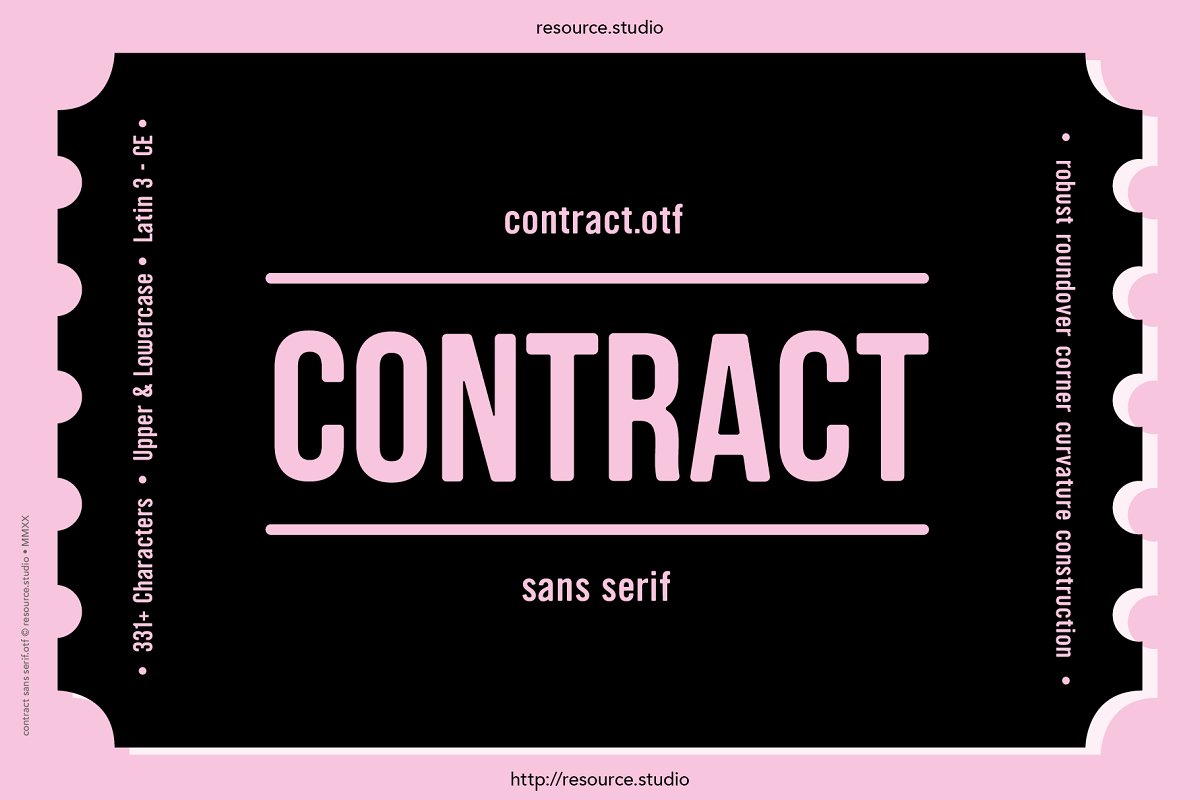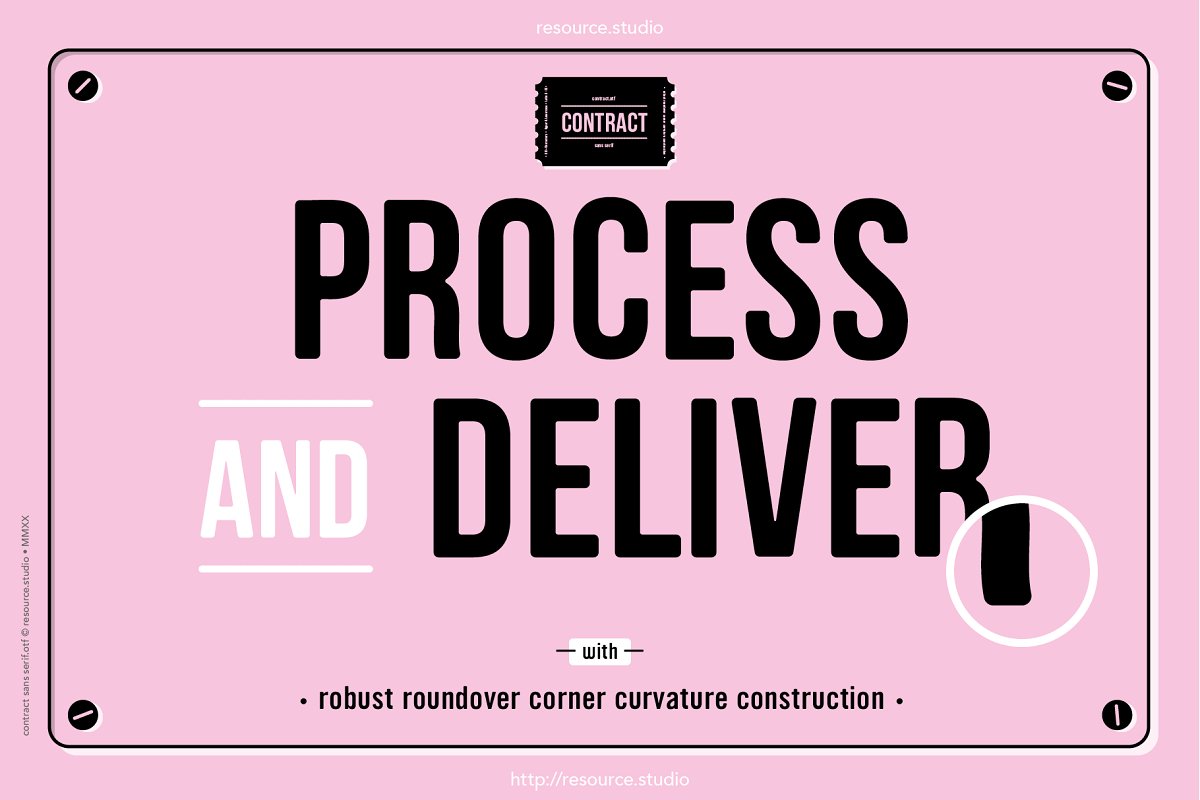
About the Contract sans serifotf Font
CONTRACT, Sans Serif OTF, A New Typographic workhorse with robust roundover corner curvature construction, Rounded condensed sans serif, 331+ Characters Upper & LowercaseAdobe Latin 3 – CE